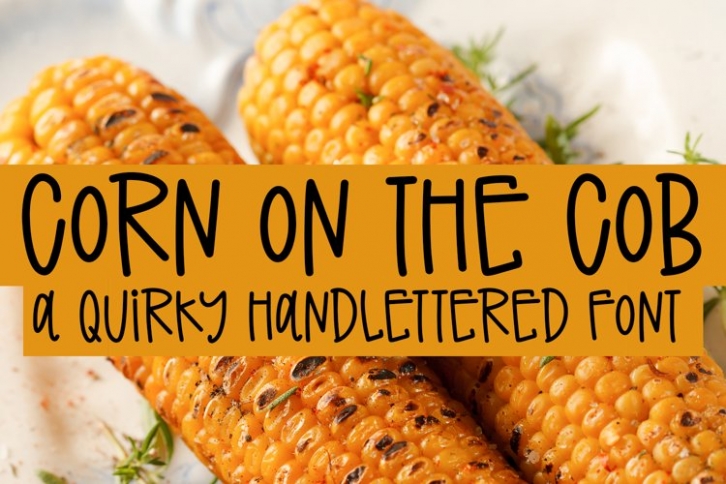
Corn On The Cob is a trendy and unique font with an authentic style. It was designed by plusstore and it's a great choice for creative people who need such a font. It was released on April 30, 2022 and the file size is 21.60 MB. Corn On The Cob will add an organic vibe to any design idea!